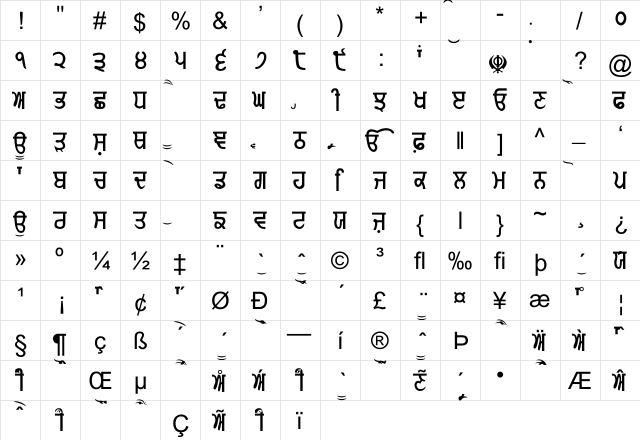
Gurmukhi-Normal Regular
Design Context for Gurmukhi-Normal Typeface
Gurmukhi-Normal takes a measured approach to typography — its balanced proportions and neutral character make it a reliable workhorse for both digital and print work.